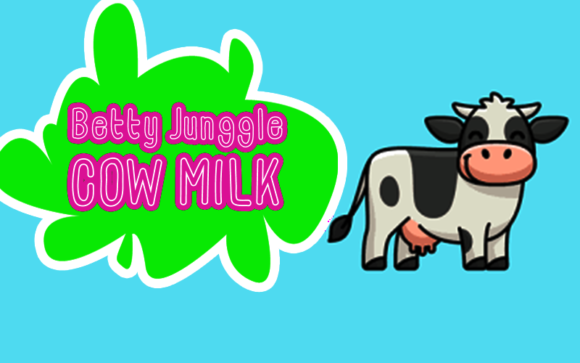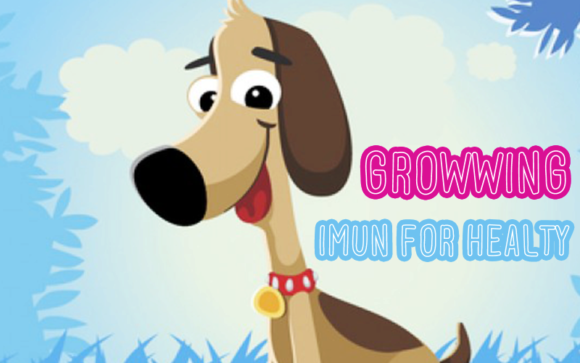
Coco Milk Font: A Cute Display Font for Kids and School Projects
Are you looking for a font that can add a touch of childlike playfulness to your designs? Look no further than the Coco Milk Font! This adorable display font is perfect for kids and school projects, and can be used to create a wide range of fun and engaging designs.
What is Coco Milk Font?
Coco Milk Font is a cute display font that features a playful and whimsical design. Its childlike charm makes it perfect for use in kids’ projects, school materials, and any other design that requires a fun and youthful touch.
Key Features of Coco Milk Font
• Playful and Whimsical Design: Coco Milk Font features a unique and playful design that is sure to capture the attention of your audience.
• Childlike Charm: The font’s childlike charm makes it perfect for use in kids’ projects and school materials.
• Easy to Read: Despite its playful design, Coco Milk Font is easy to read and can be used in a variety of design applications.
• Versatile: Coco Milk Font can be used in a wide range of design applications, from posters and flyers to digital graphics and crafts.
Uses of Coco Milk Font
Coco Milk Font is a versatile font that can be used in a wide range of design applications. Here are some ideas to get you started:
• Kids’ Projects: Use Coco Milk Font to create fun and engaging designs for kids’ projects, such as posters, flyers, and worksheets.
• School Materials: Coco Milk Font is perfect for use in school materials, such as textbooks, workbooks, and educational posters.
• Digital Graphics: Use Coco Milk Font to create fun and engaging digital graphics, such as social media posts, blog headers, and email newsletters.
• Crafts: Coco Milk Font can be used in a variety of craft projects, such as scrapbooking, card making, and DIY signs.
Tips for Using Coco Milk Font
Here are some tips for using Coco Milk Font in your designs:
• Use it in Large Text: Coco Milk Font is best used in large text, such as headings and titles.
• Experiment with Colors: Coco Milk Font looks great in a variety of colors, so don’t be afraid to experiment and find the perfect color for your design.
• Pair it with Other Fonts: Coco Milk Font can be paired with other fonts to create a unique and interesting design.
Coco Milk Font is a cute and playful display font that is perfect for kids and school projects. Its childlike charm and whimsical design make it a great addition to any design project. With its ease of use and versatility, Coco Milk Font is a great choice for designers and crafters of all skill levels.